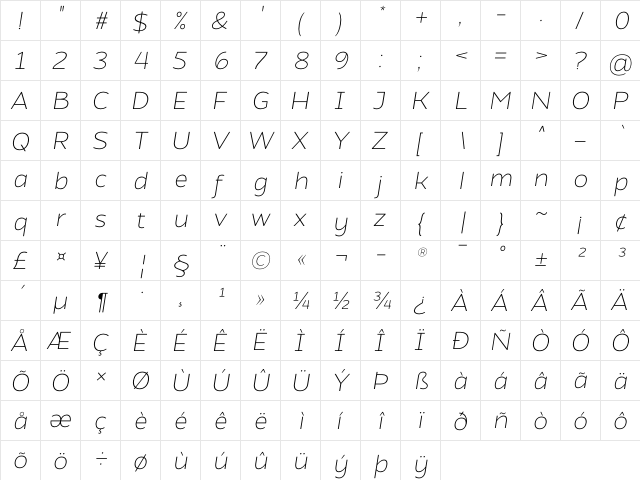
Atozimple ExtraLight Italic Font Preview
Design Context for Atozimple ExtraLight Typeface
Atozimple ExtraLight takes a measured approach to typography — its balanced proportions and neutral character make it a reliable workhorse for both digital and print work. The dynamic lean of this cut emphasises speed and emphasis in any layout. The delicate stroke weight brings airiness and refinement to layouts.
Pro Tip: Try Atozimple ExtraLight for annotation and caption copy alongside an upright companion — the contrast in angle creates a dynamic but ordered typographic system.